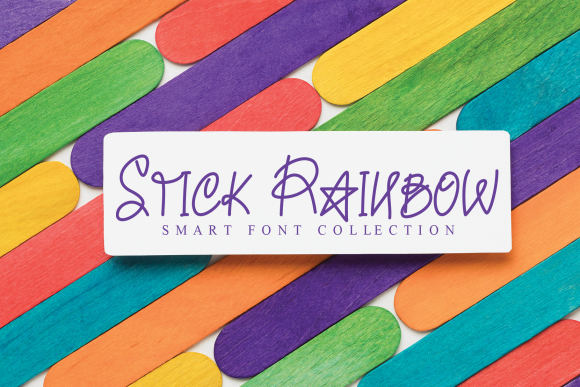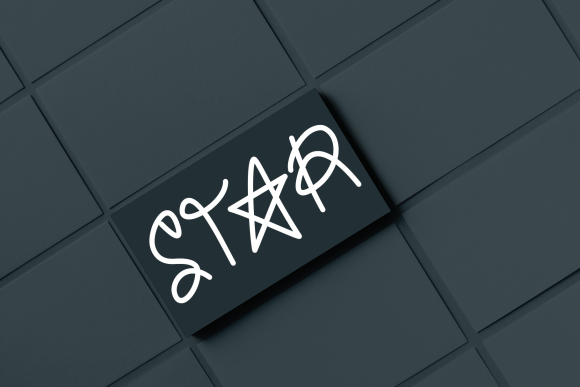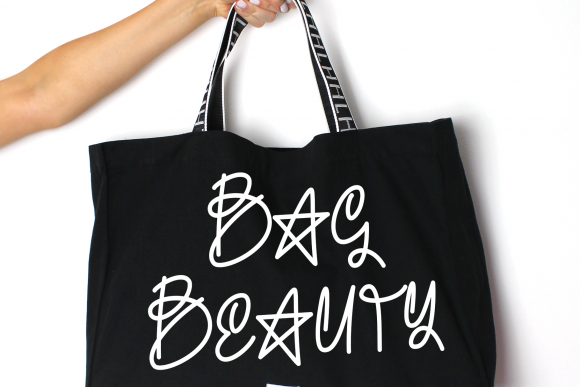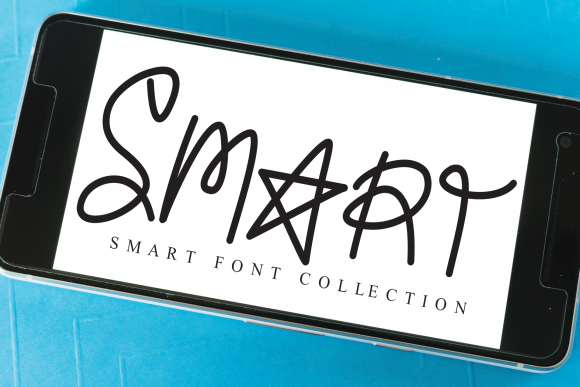
Introduction to Homestar Font
Have you ever stared at a blank canvas, waiting for inspiration to strike? For designers, those moments of creative block can be daunting, but they can also be opportunities to discover new and exciting design resources. It was during one such moment that we stumbled upon the Homestar Font – a cool and quirky display font that’s set to revolutionize the way we approach creative projects.
With its perfect blend of trendiness and down-to-earth charm, the Homestar Font is a valuable addition to any designer’s toolkit. Whether you’re working on a high-quality branding project or creating a design resource for a client, this font is sure to bring a touch of personality to your work. Plus, with a transparent background, you can easily integrate it into your designs without any fuss.
Key Features of Homestar Font
- High-quality, vector-based font design for a crisp and clear appearance.
- Features a transparent background, making it ideal for creative projects that require a clean and minimalist aesthetic.
- Has a large character set, including uppercase and lowercase letters, numbers, and punctuation marks.
- Designed with a modern and playful feel, making it perfect for creative projects that require a unique and eye-catching look.
- Includes a range of weights and styles, from light to bold, to suit various design needs and preferences.
Honest Review: Homestar Font
As a designer, I’m always on the lookout for high-quality design resources that can elevate my creative projects. Recently, I had the chance to try out the Homestar Font, and I’m excited to share my honest review with you.
- ✨ The font has a unique and quirky design that can add a fun touch to any creative project.
- ✨ The transparent background option allows for easy layering and customization, making it a great resource for designers who like to experiment.
- ⚠️ The font may not be suitable for formal or professional projects, as it has a more playful and casual vibe.
- ⚠️ Some users may find the font’s quirky design to be distracting or overwhelming, so be sure to use it sparingly.
Overall, I’m impressed with the Homestar Font, and I think it’s a great addition to any designer’s toolkit. While it may not be suitable for every project, it’s a fantastic resource for designers who want to add a little personality and whimsy to their work.
Tips for Getting the Most Out of Homestar Font
Experiment with different font sizes, colors, and styles to create a unique look for your creative project. Use the transparent background to create a sense of depth and layering in your design.
The Homestar Font is ideal for creative projects that require a high-quality, unique font. It’s perfect for logos, branding, and advertising materials, as well as for creating eye-catching graphics and illustrations.